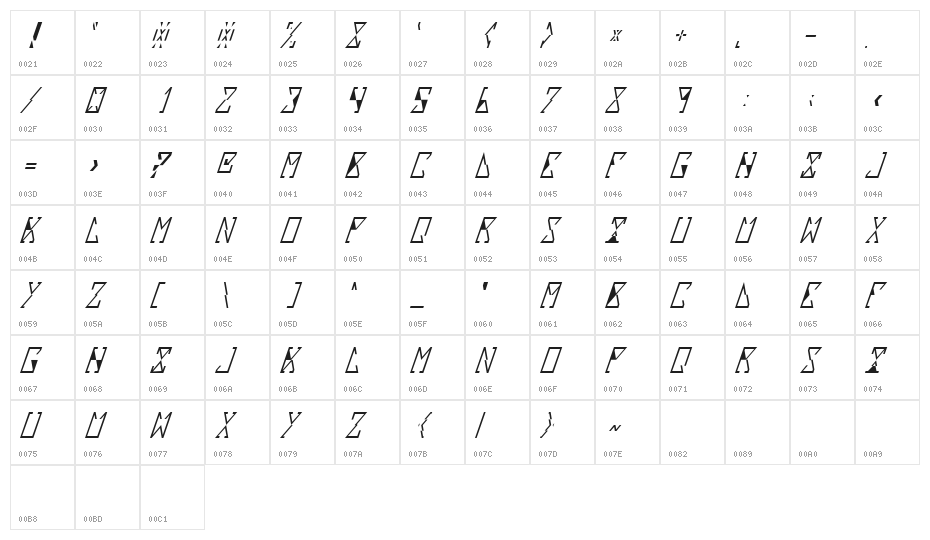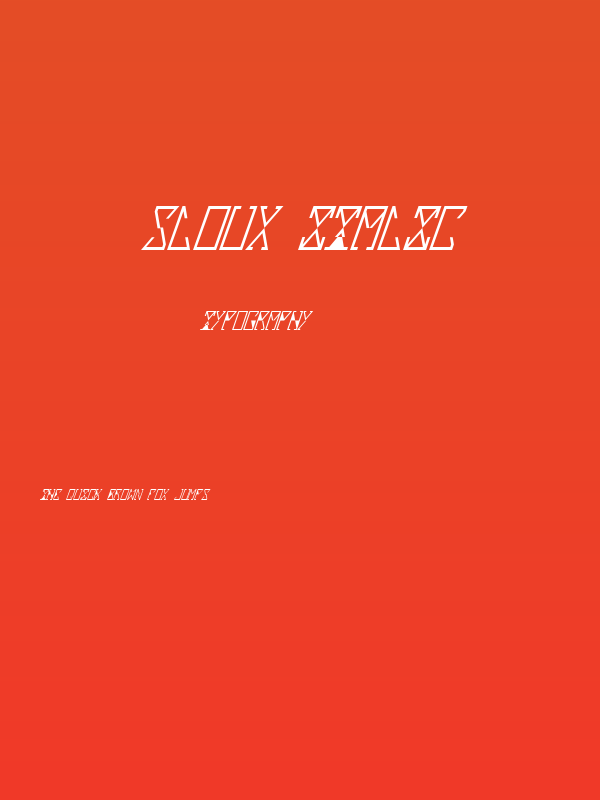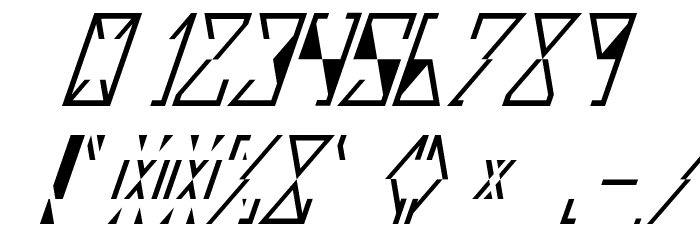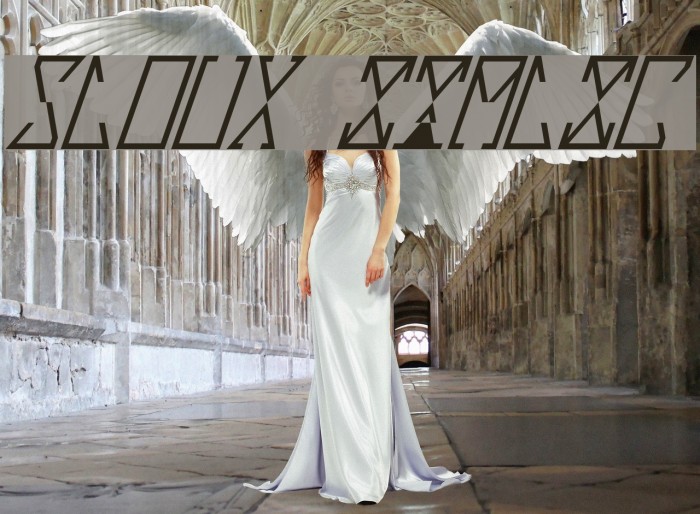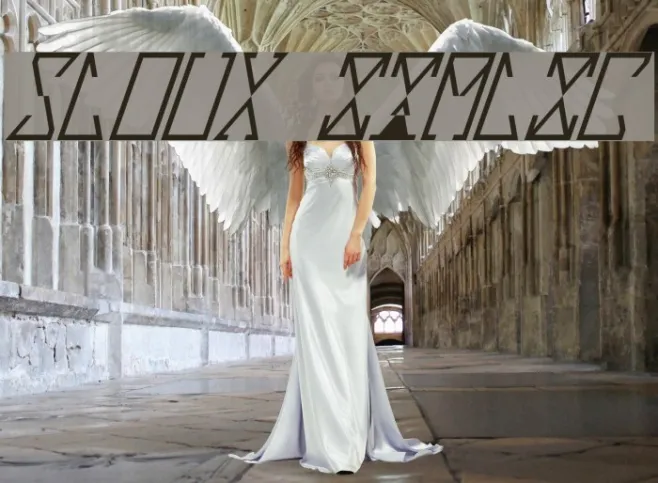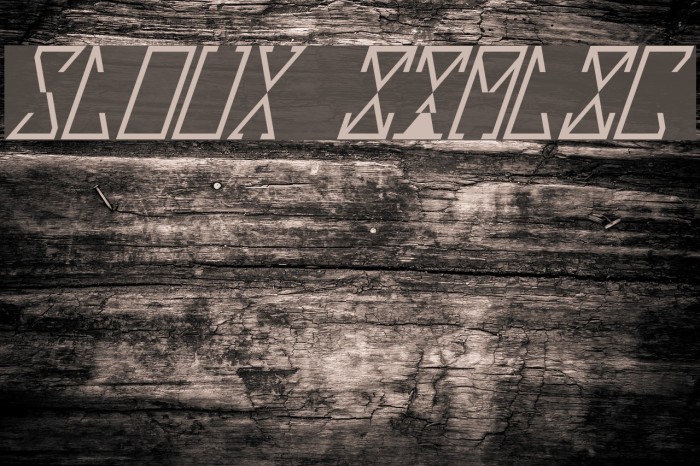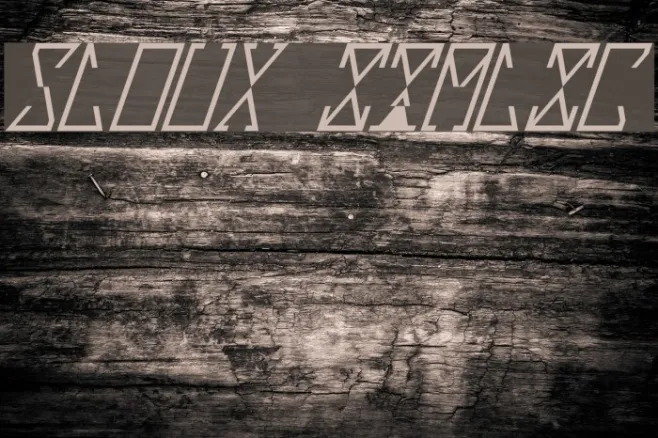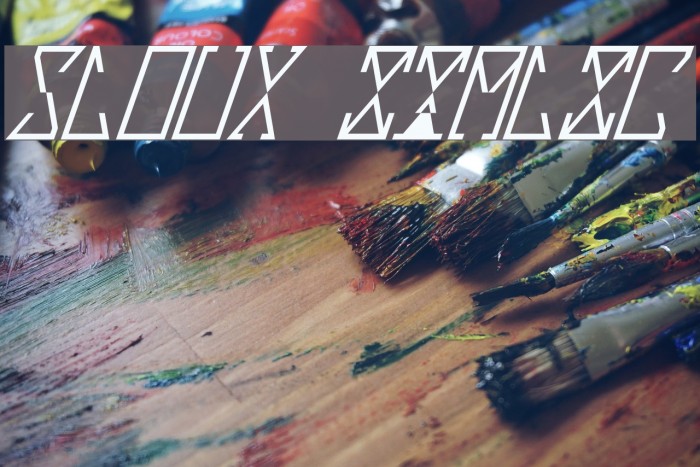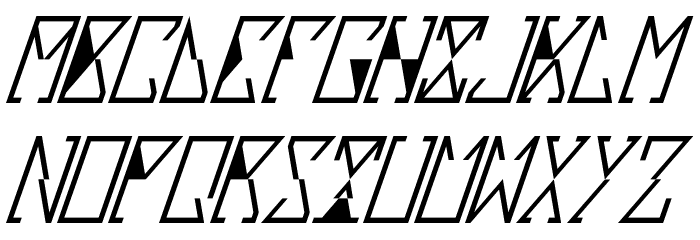
Sloux Italic Font
Sloux Italic Description
This font exhibits a highly stylized and angular design, characterized by sharp edges and a dynamic, italicized slant. The letters are composed of geometric shapes, creating a futuristic and edgy appearance. The uppercase and lowercase letters maintain a consistent style, with each character featuring unique cutouts and angles that add to the overall aesthetic. The numbers and special characters follow the same design principles, ensuring uniformity across the font. This font's bold and striking look makes it suitable for attention-grabbing applications.
| Proposed Projects | Ideal for sci-fi themed designs, modern branding, posters, and digital artwork. |